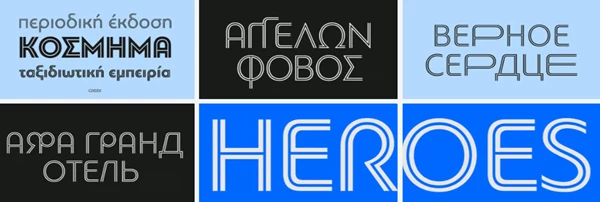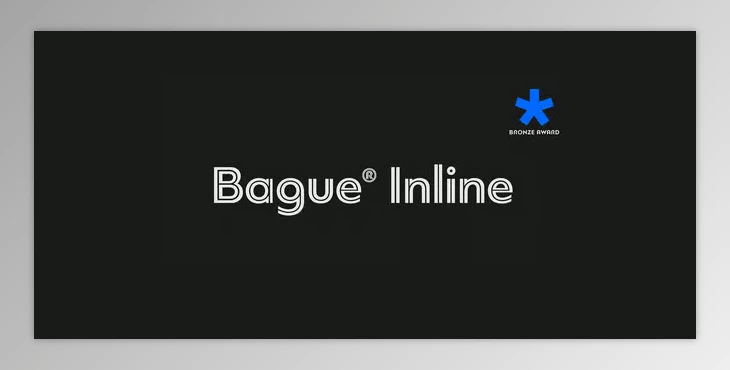
Bague Inline Pro is an extension of the Bague Universal typeface, a modern geometric typeface with a minimalist approach that appeals to mainstream standards. While Bague Universal takes a geometric approach to Herbert Bayer's designs of the 1920s, it strays from geometric extremes and embraces humanist qualities and a form closer to traditional letterforms that tone down the severity of minimalist qualities. Bague Inline Pro has a more neutral approach, making it perfect for modern design situations. As a whole, it reflects the urban appeal of an era with historical ties.
Bague Inline Pro's variety of uppercase alternates and extensive ligatures is one of its most impressive aspects, since they are more legible at larger display sizes; these characteristics can play a large role in graphic layouts. For example, there are four groups of alternates and countless discretionary ligatures that allow for fluid and stylish creations. Bague Inline Pro's four distinct weights (from thin to bold) accompany both an uppercase and lowercase appearance, offering editors and branding professionals unmatched capabilities. Each style of the family comes with 775 glyphs, more than 128 alternates and ligatures, and an extended character set across Latin, Cyrillic, and Greek scripts. Bague Pro Inline is a typeface for those seeking a versatile and all-in-one creation.